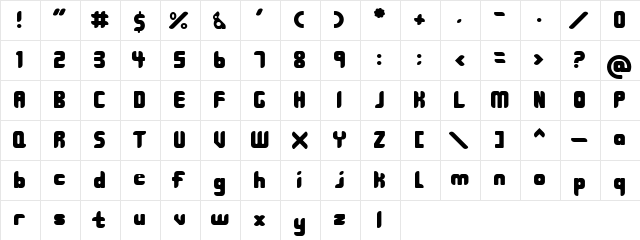
208 208 Font Preview
| Foundry | Quan Vu |
| Designer | Quan Vu |
Design Context for 208 Typeface
208 offers clean, dependable letterforms without strong stylistic allegiance, making it a practical choice for designers who need flexibility.